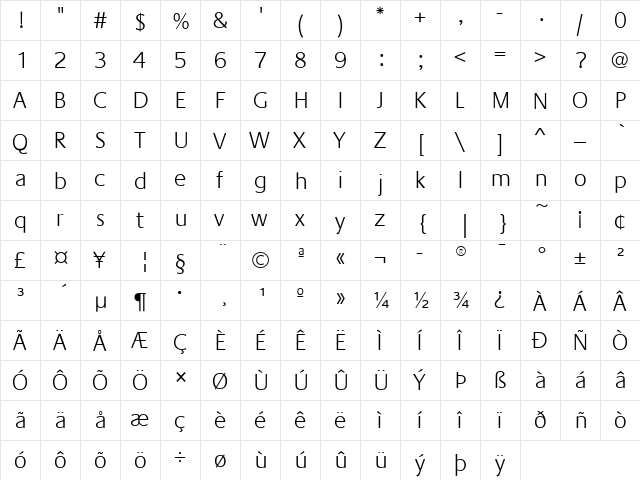
Praxis LT Light Regular
Design Context for Praxis LT Light Typeface
Praxis LT Light is a composed and adaptable typeface that performs quietly and consistently across a wide range of design contexts. The delicate stroke weight brings airiness and refinement to layouts.